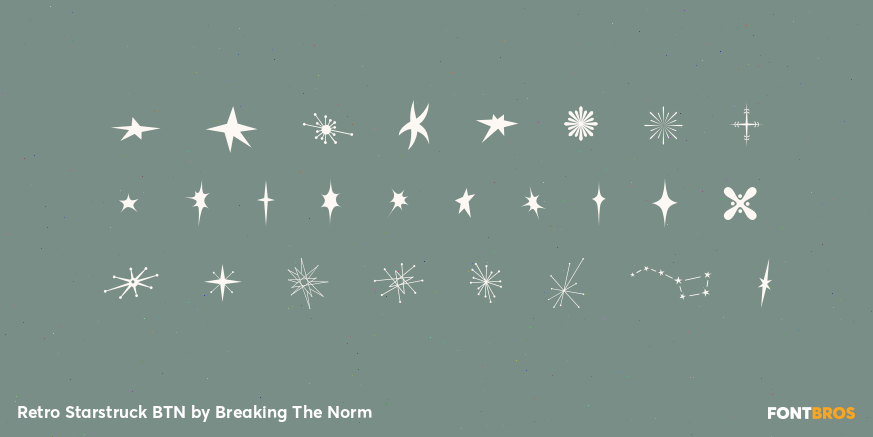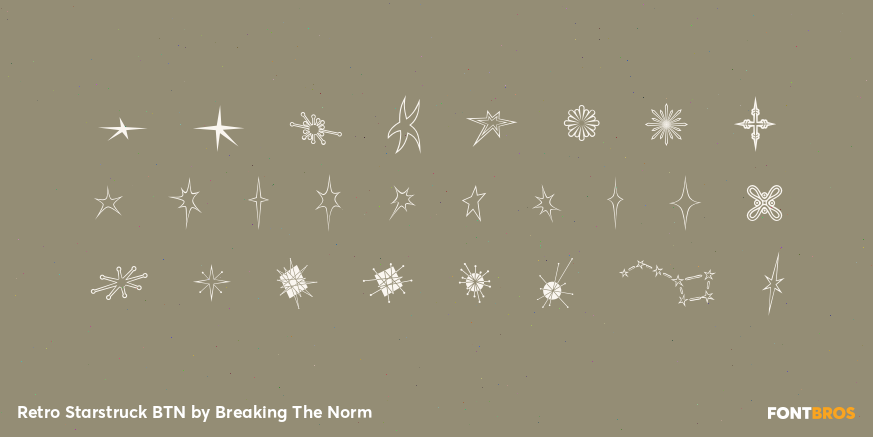
Retro Starstruck BTN
Font Family by Breaking The Norm
Retro Starstruck BTN is a dingbat font filled with vintage-style starbursts, spark accents, and retro decorative shapes. Designed to bring instant flair to layouts, it offers an easy way to add sparkle, emphasis, and classic mid-century-style graphic touches to posters, packaging, signage, advertisements, party materials, and playful editorial design. Retro Starstruck BTN is a useful decorative companion for projects that want bright visual accents with a nostalgic retro feel.